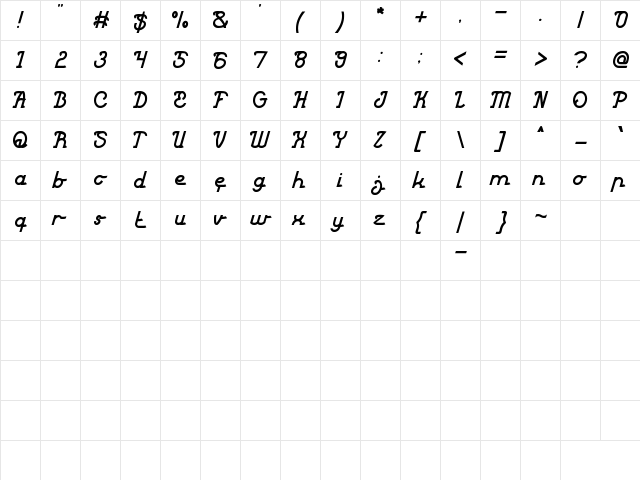
King of Everything Regular
Design Context for King of Everything Typeface
King of Everything takes a measured approach to typography — its balanced proportions and neutral character make it a reliable workhorse for both digital and print work. Its slender proportions lend an understated elegance to any composition.